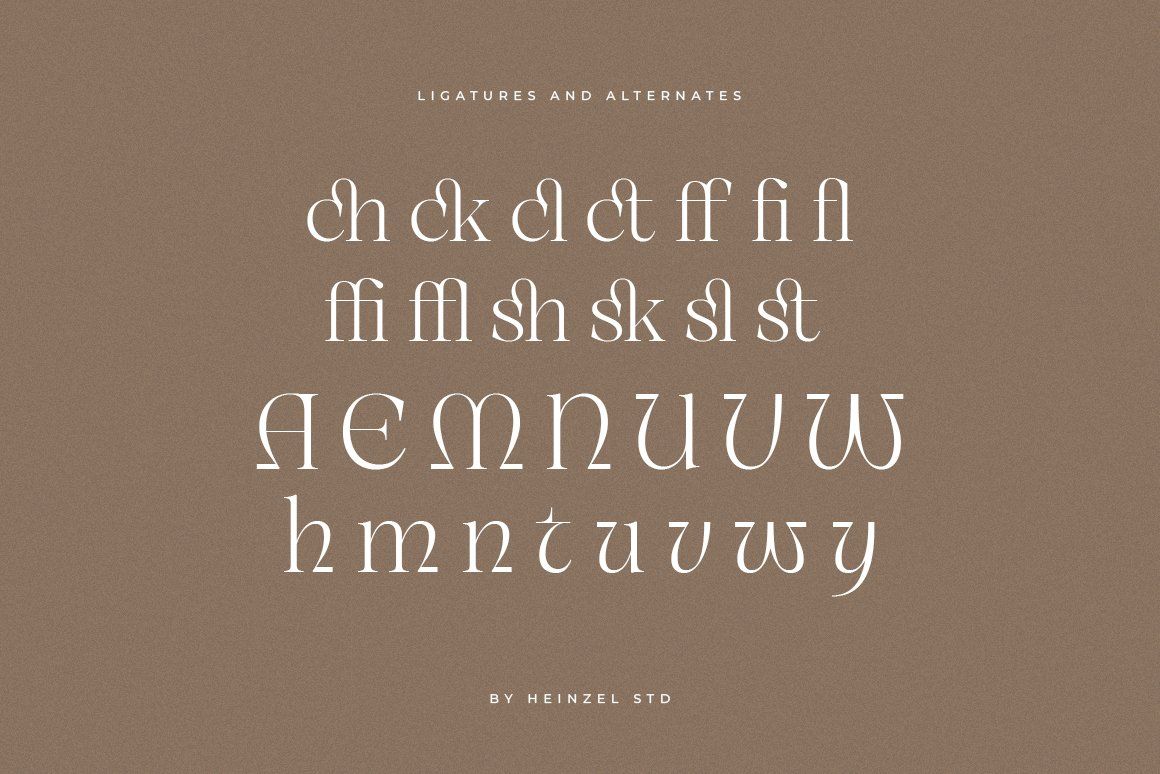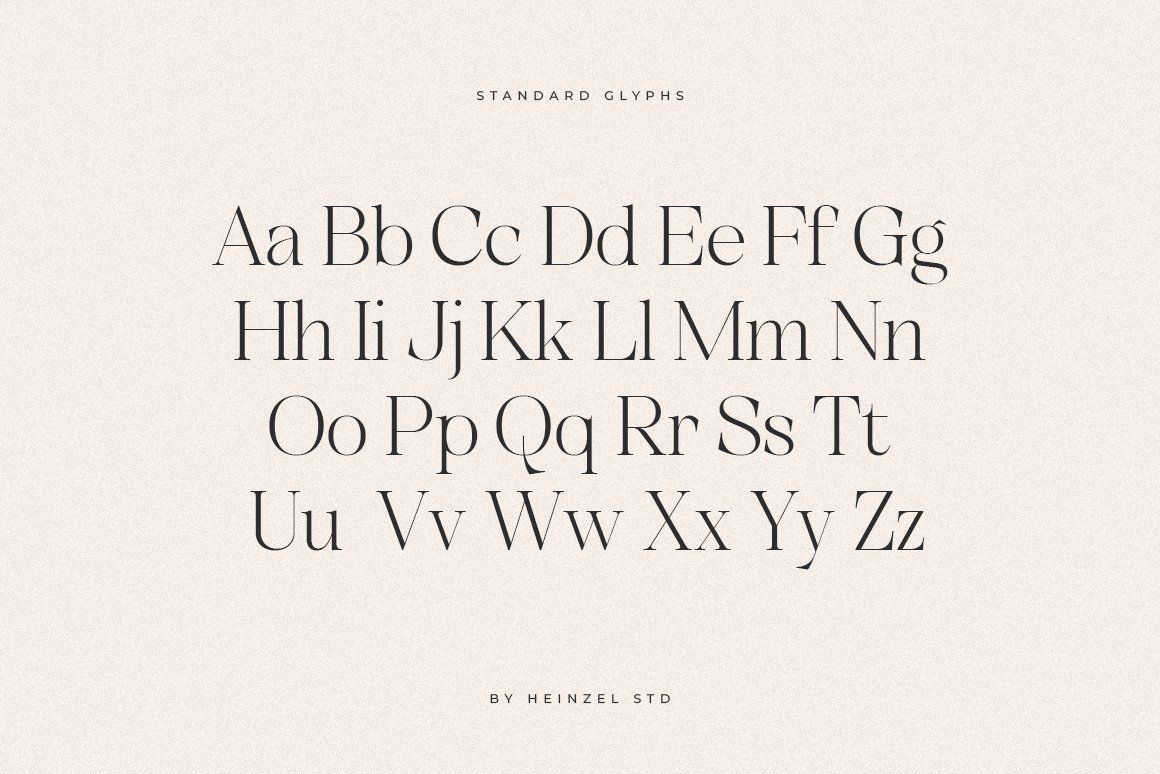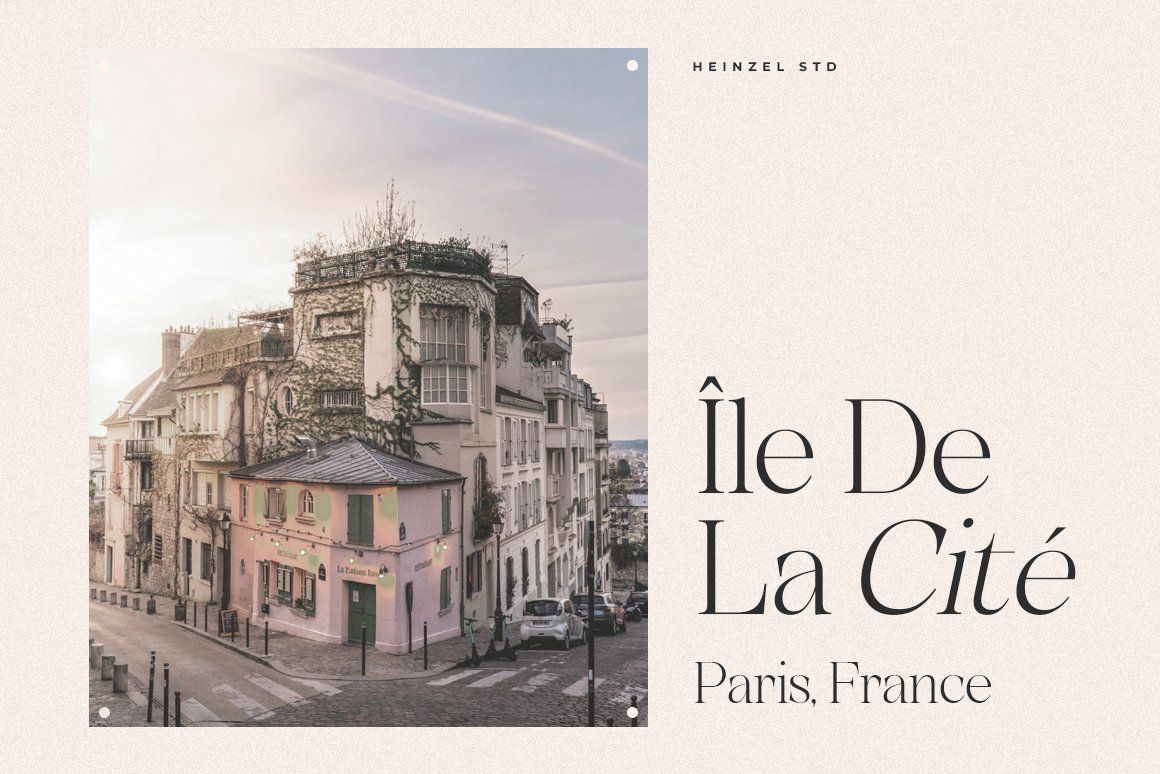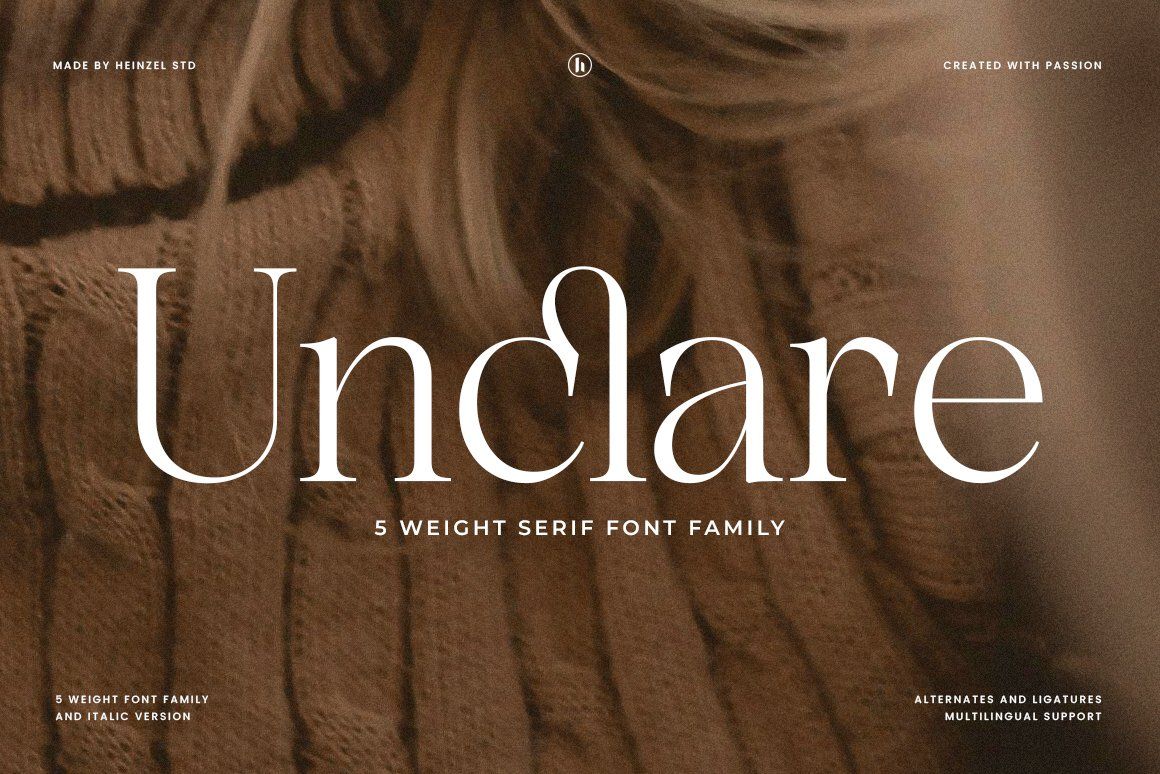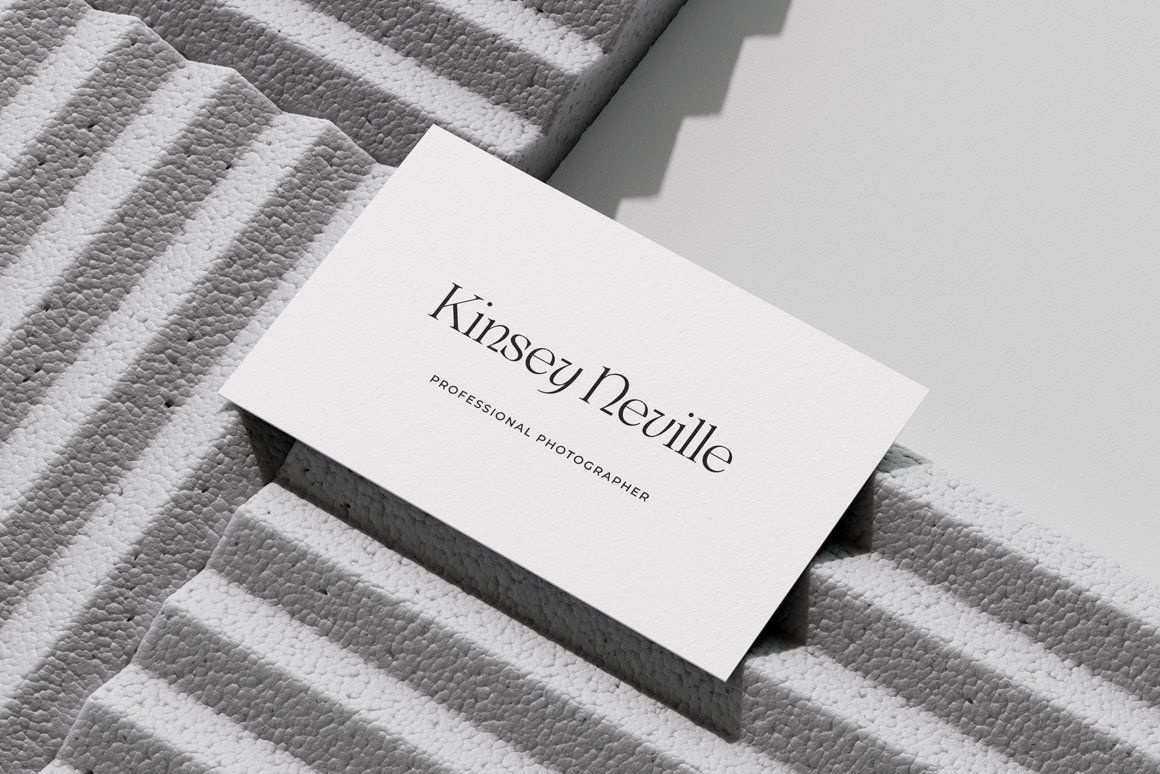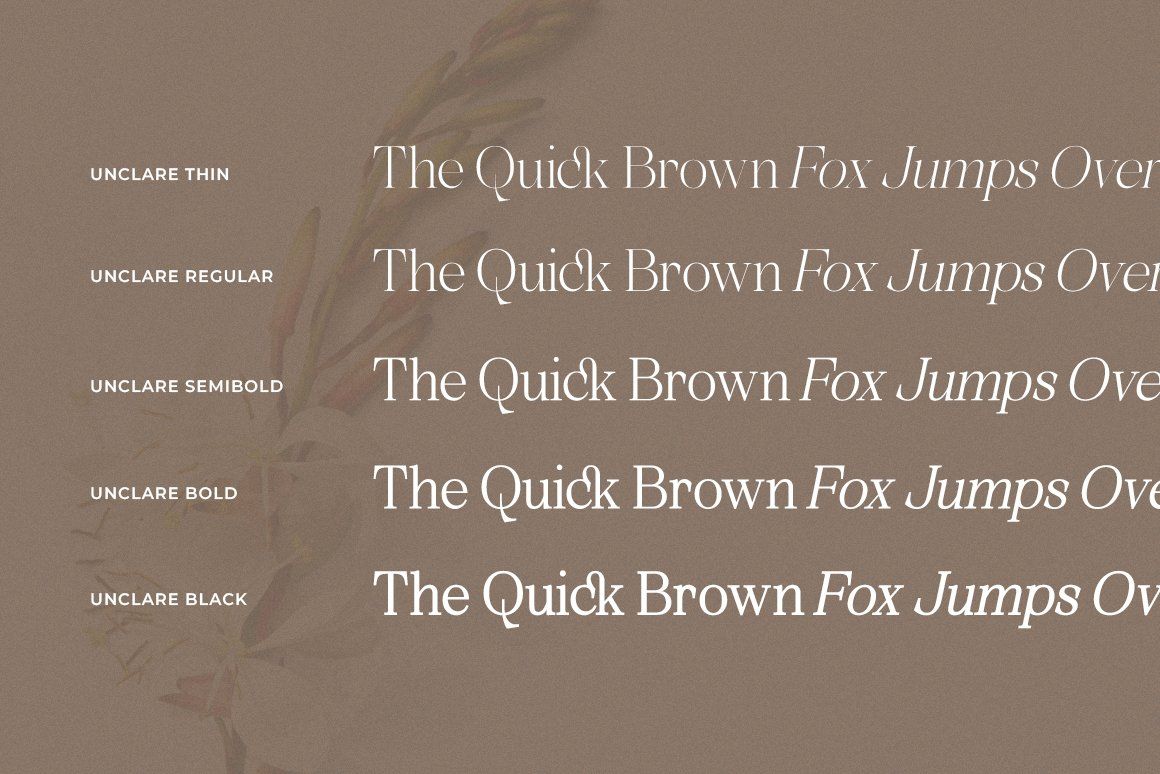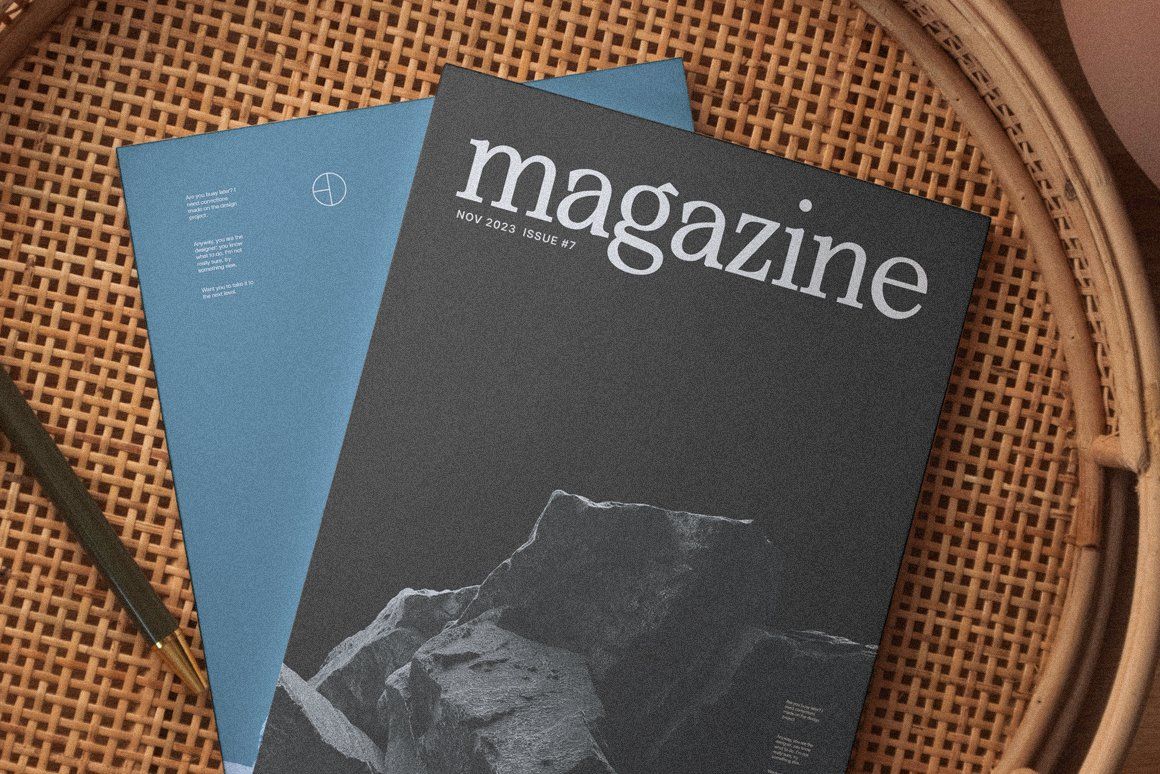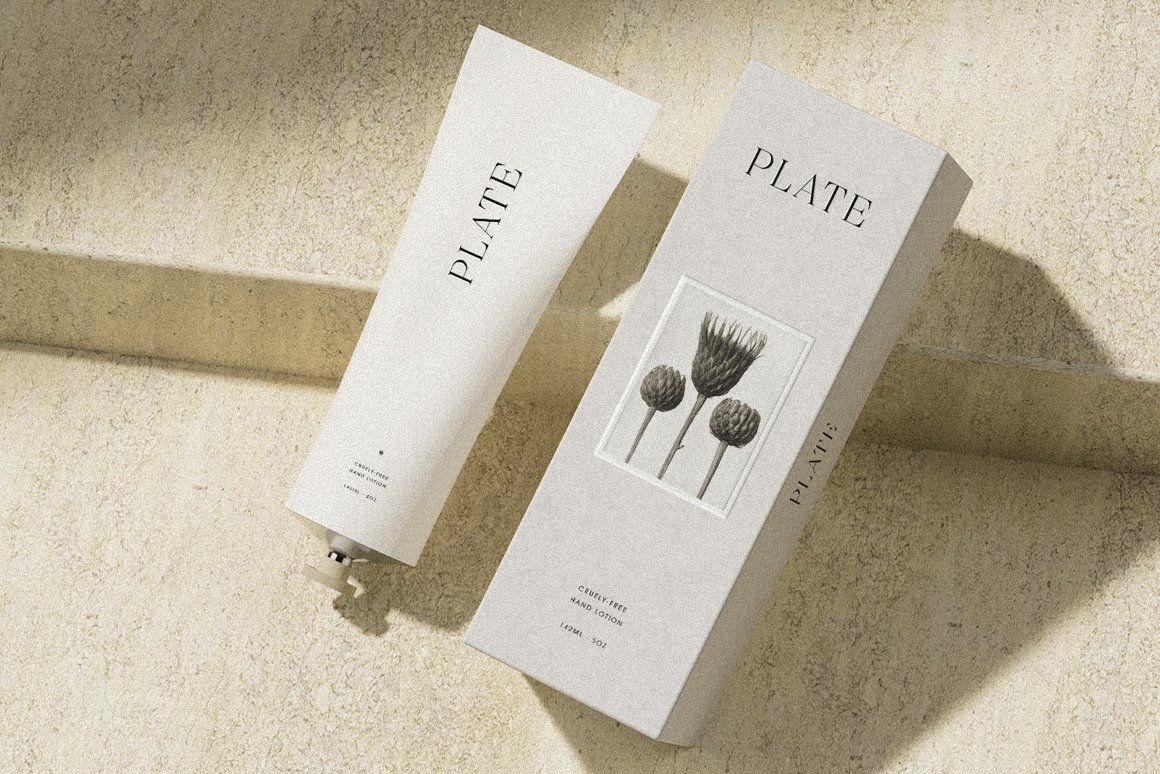
Unclare is a striking ligature serif font that blends elegance with contemporary design. Its captivating style makes it an excellent choice for crafting stunning logos, engaging headlines, and sophisticated branding materials. Whether you're designing wedding invitations or creating beautiful stationery, Unclare's refined aesthetic will enhance your projects, adding a touch of elegance and modern flair.
The font's PUA encoding provides seamless access to a wide array of unique glyphs, allowing for creative versatility in any design project. This feature makes Unclare perfect for producing eye-catching social media content and much more. With its unique characteristics, this font is a valuable tool for graphic and digital designers seeking to make a lasting impression with their work.
Unclare Features:
• 5 Weight Font Family
• Include Italic Version
• Uppercase, Lowercase, Numerals, and more punctuations.
• Ligatures and Alternates
• Multilingual support for various languages
• PUA Encoded